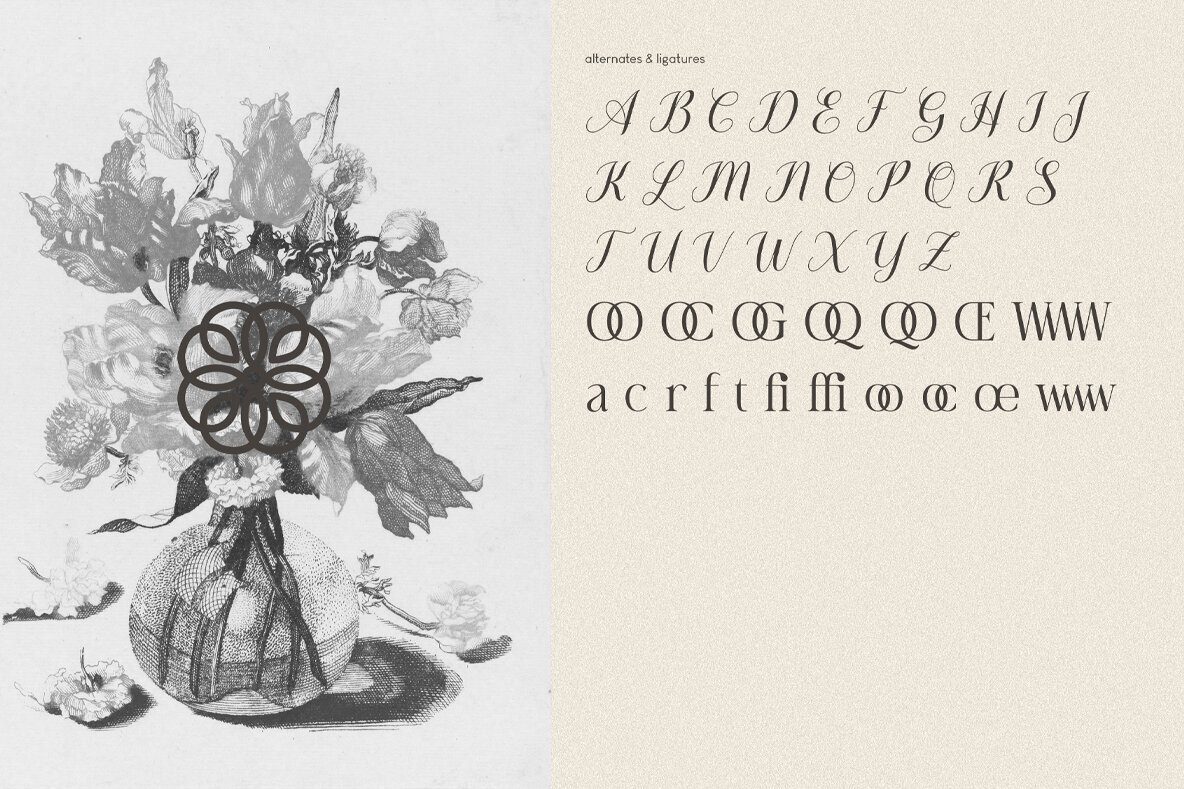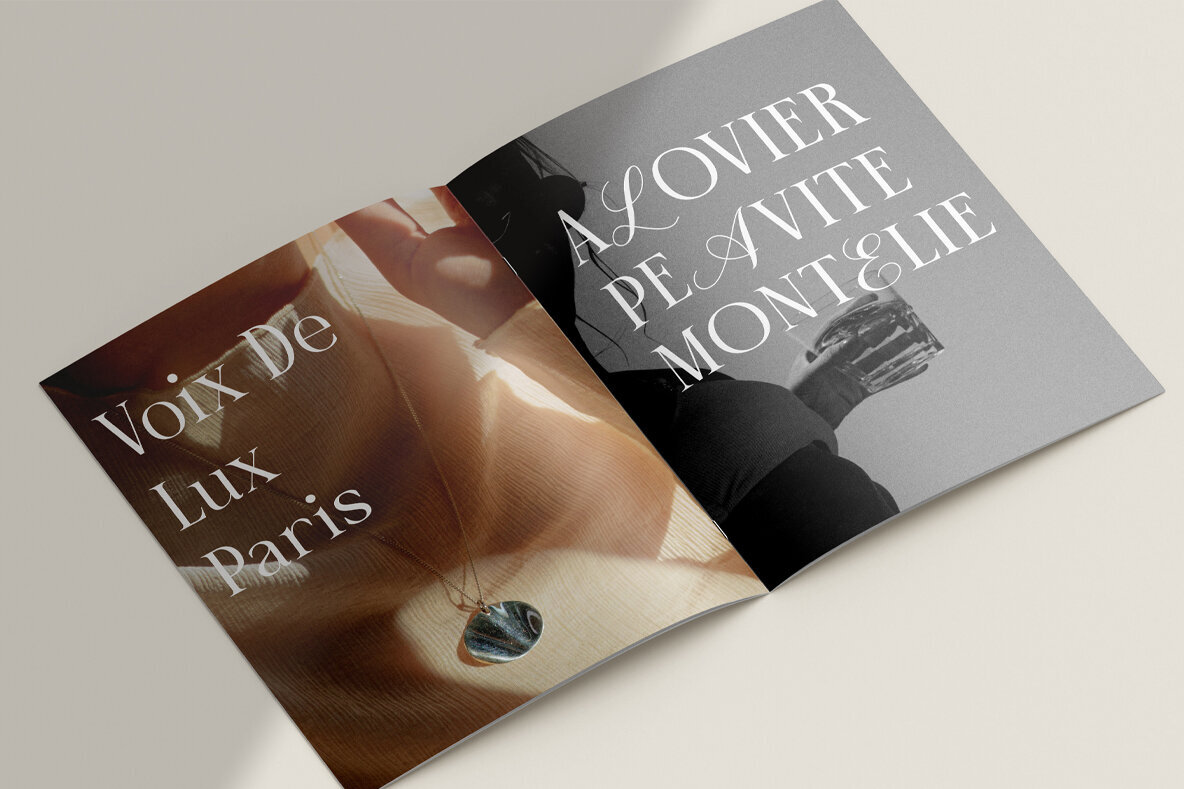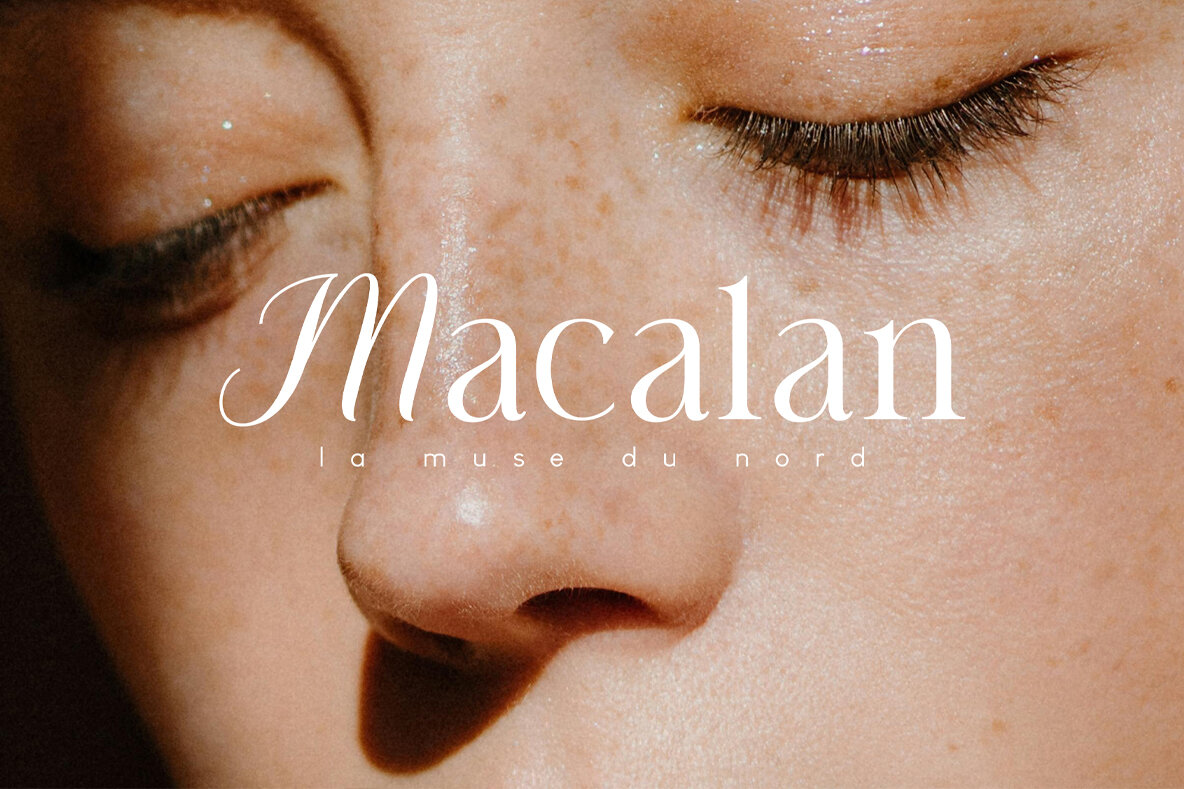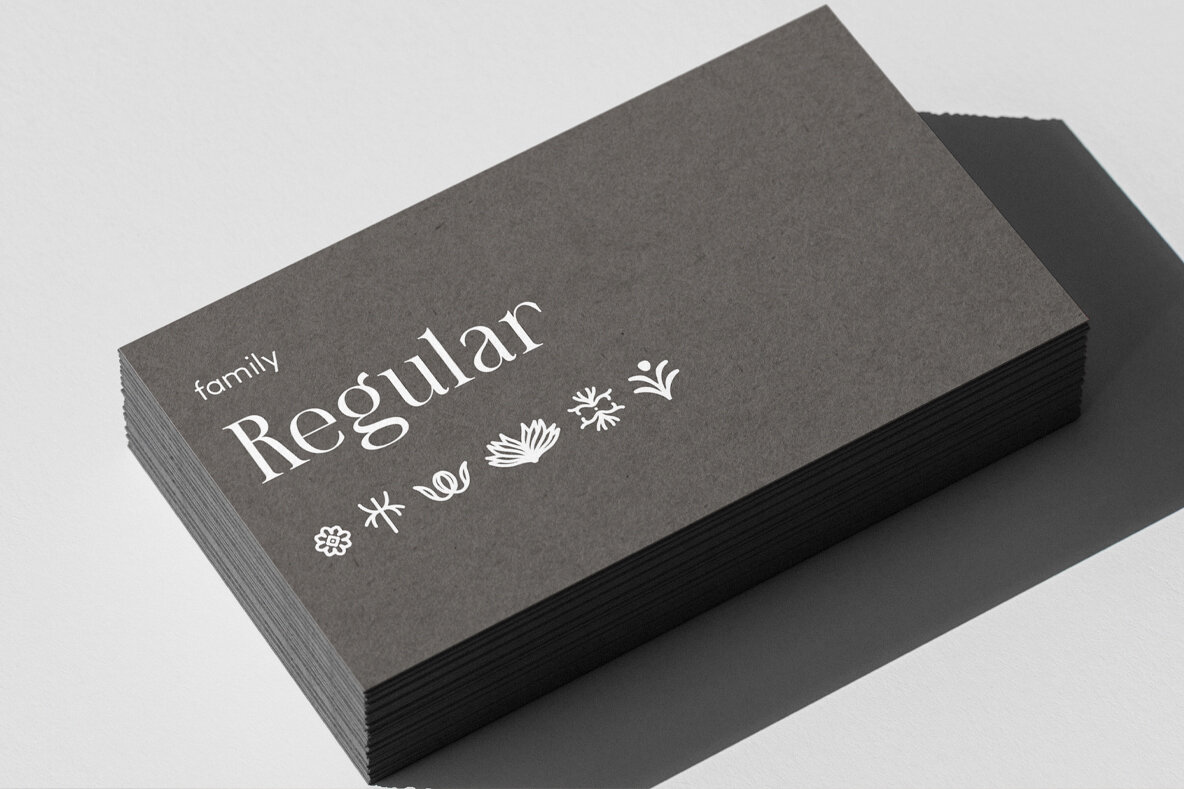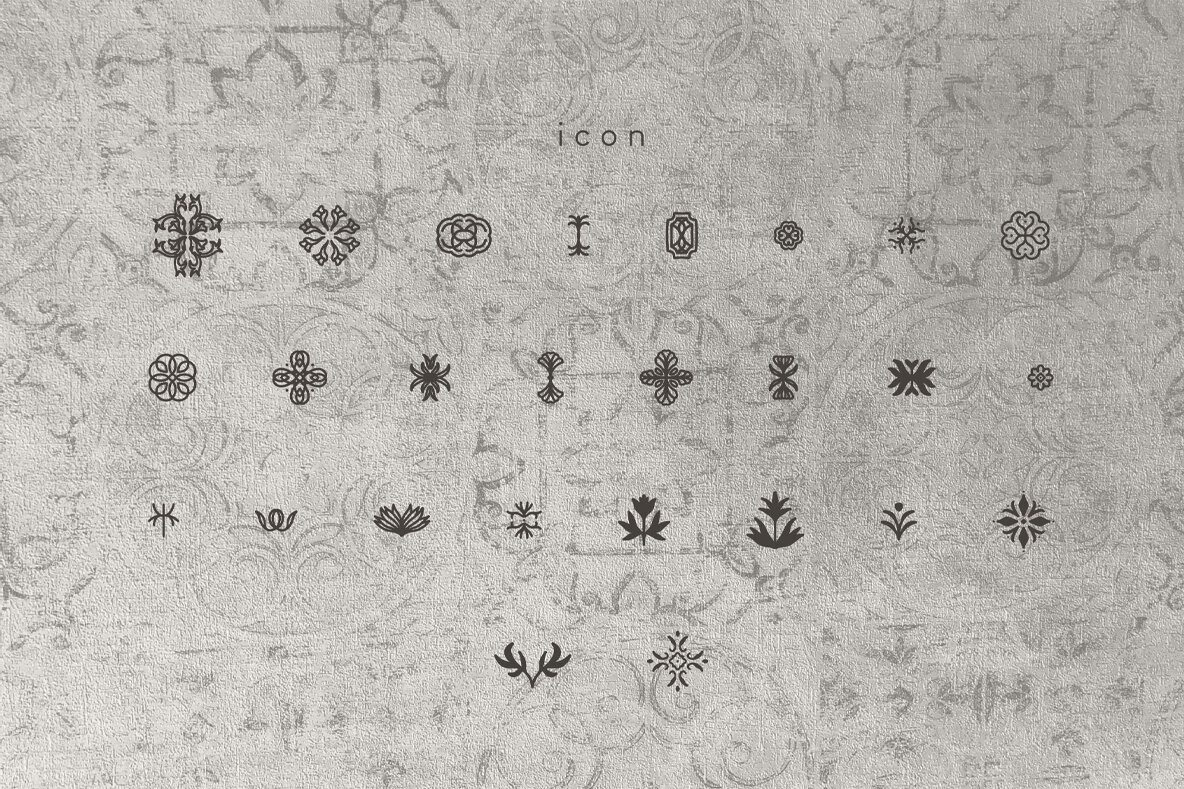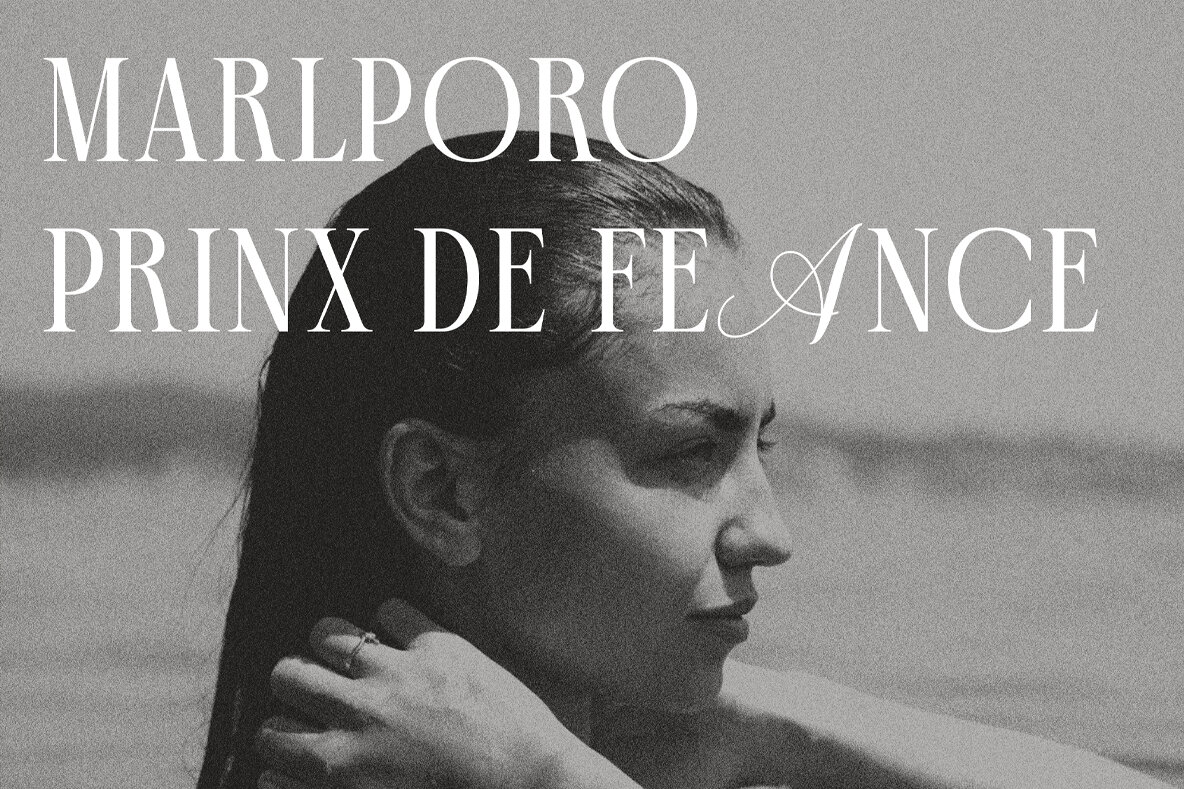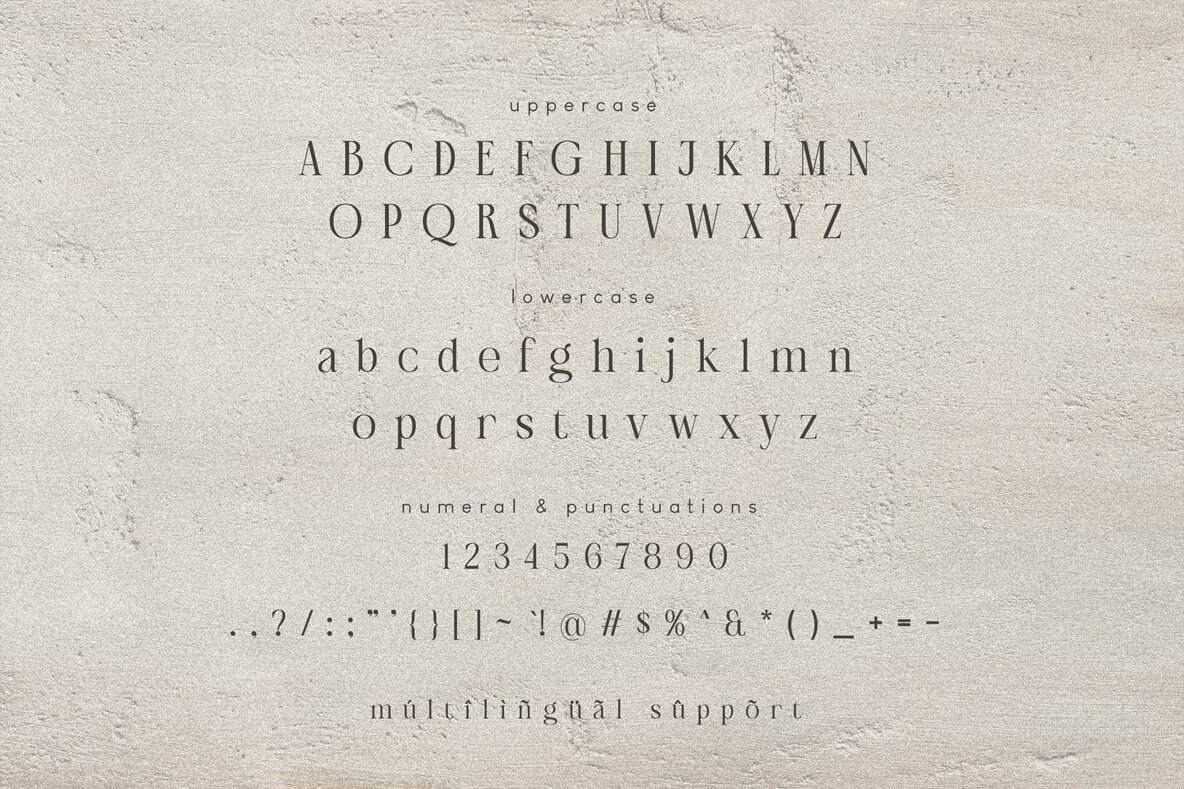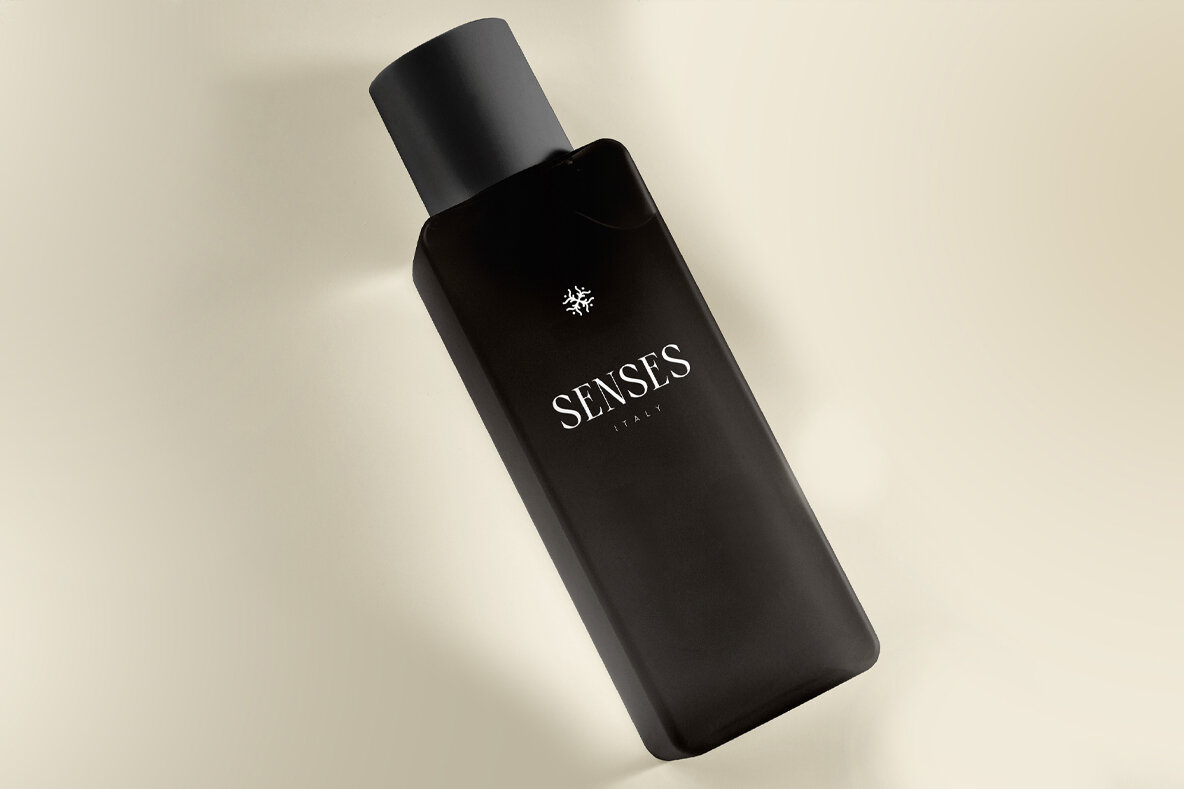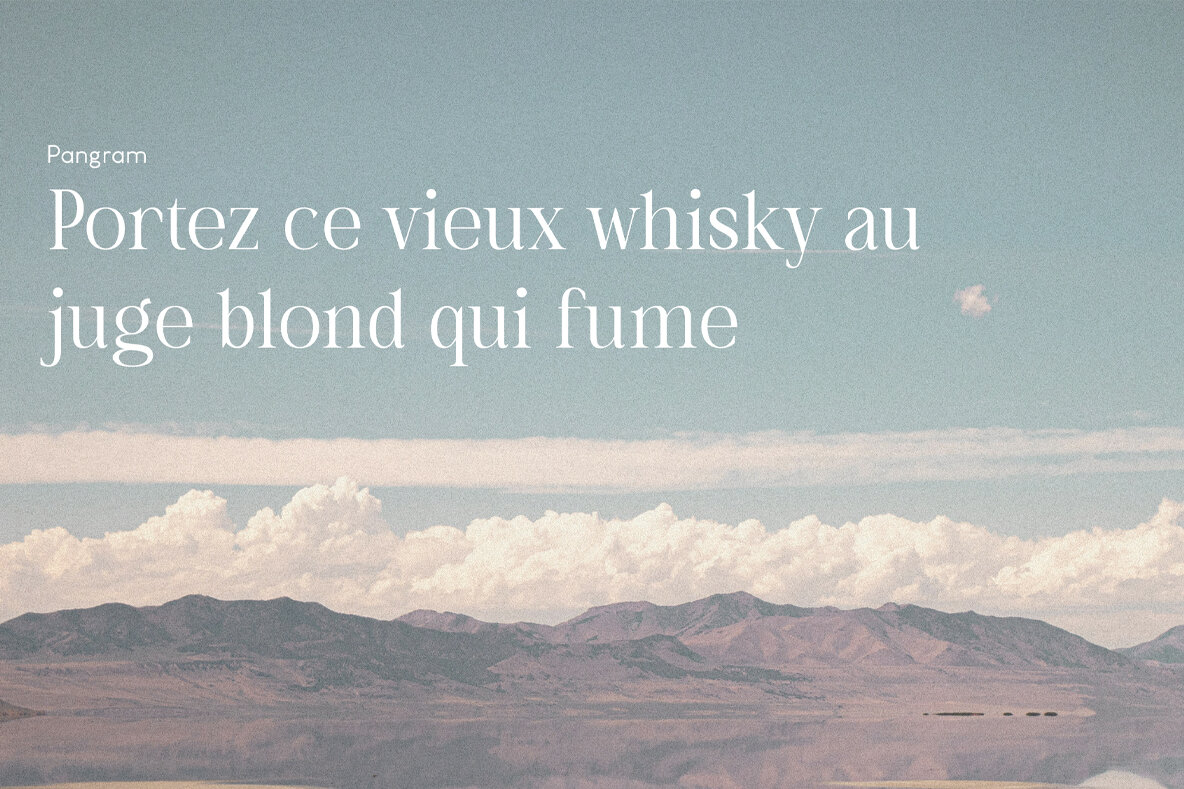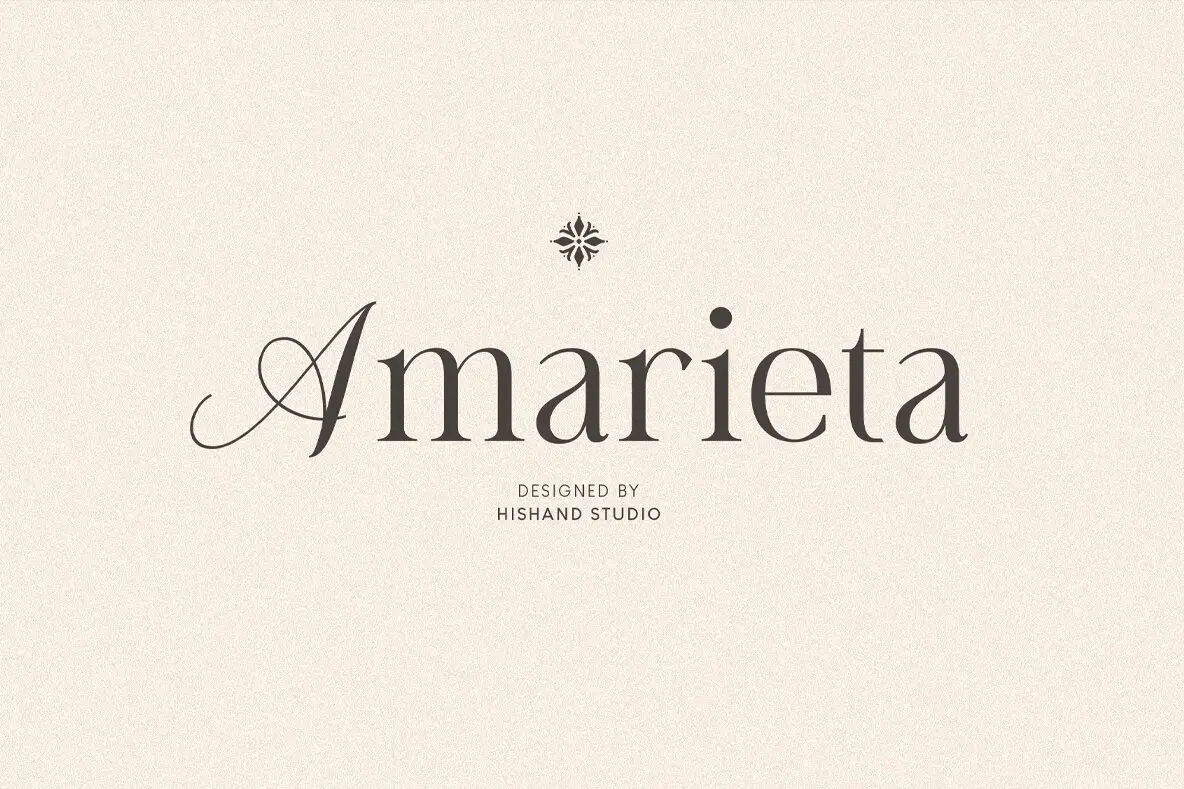
Amarieta Font
Amarieta
Amarieta masterfully fuses the structure of classic serif fonts with gentle, script-inspired curves, creating an exquisite design. Its luxurious appearance is underscored by smooth transitions and graceful character shapes, while maintaining readability with its subtle script influence. See Amarieta come to life in a range of high-end applications, from sophisticated branding to elegant wedding invitations. The high contrast strokes and elegant flow also make this font ideal for editorial layouts and upscale packaging. Amarieta distinguishes itself in both large headlines and refined logotypes, striking a balance between formality and charm. With its distinctive yet versatile style, Amarieta evokes a sense of timeless beauty and modern sophistication. Each letter is crafted to reflect elegance and assuredness, making it an exceptional choice for premium design projects that require a touch of class.Amarieta: A Refined Serif Hybrid With Subtle Script Influence